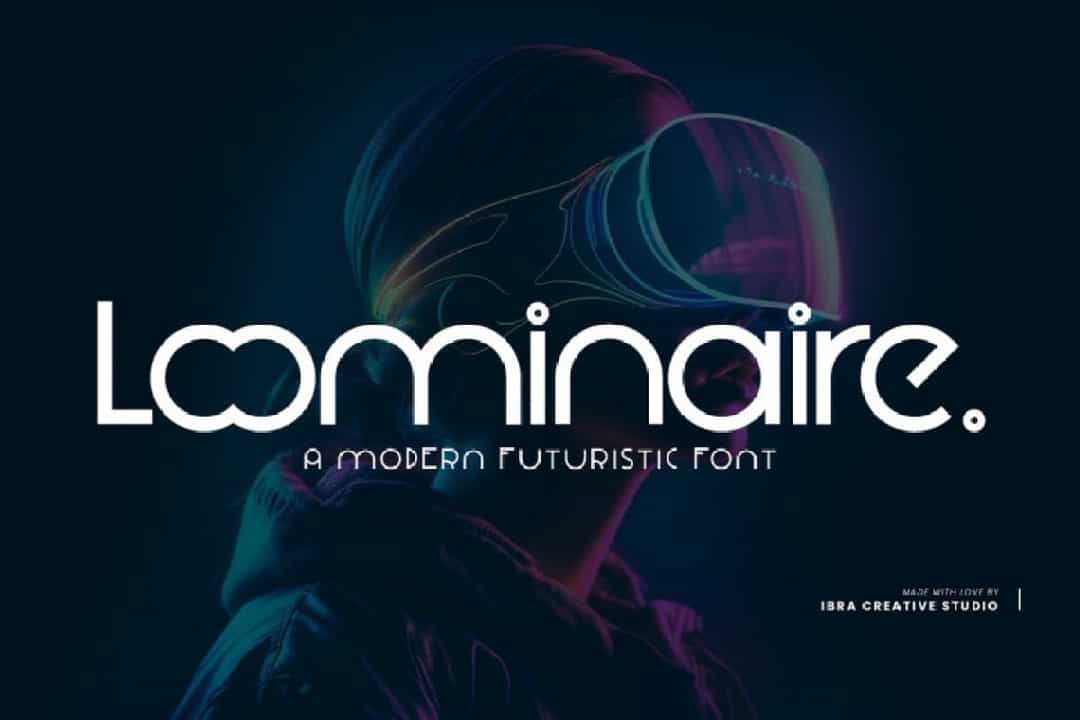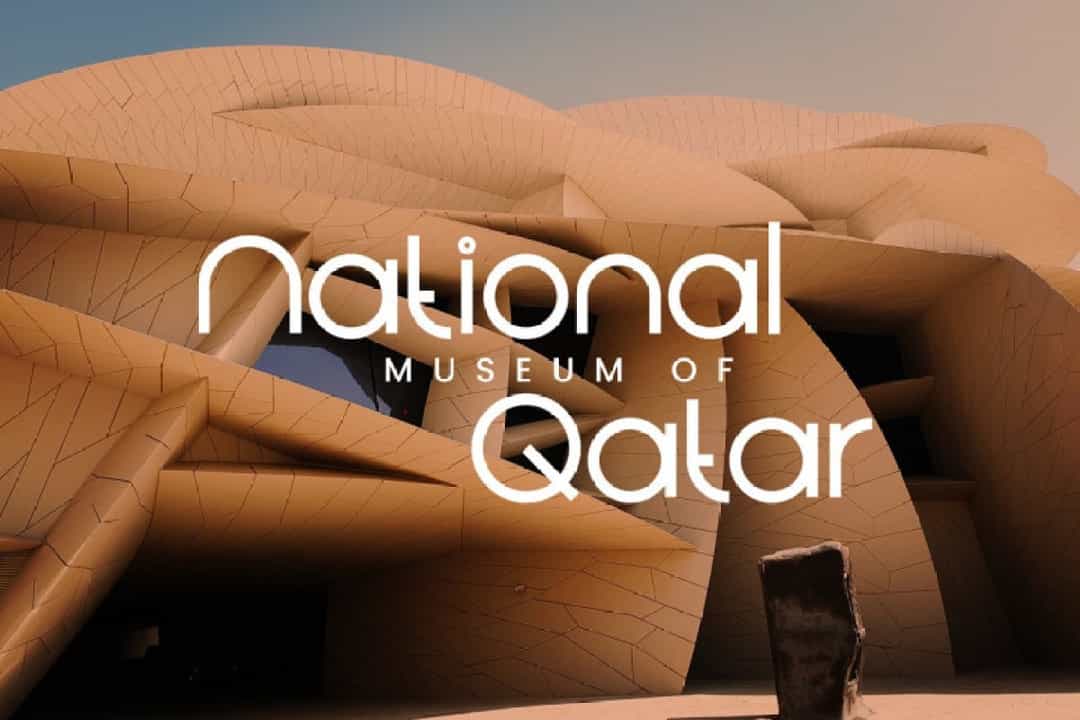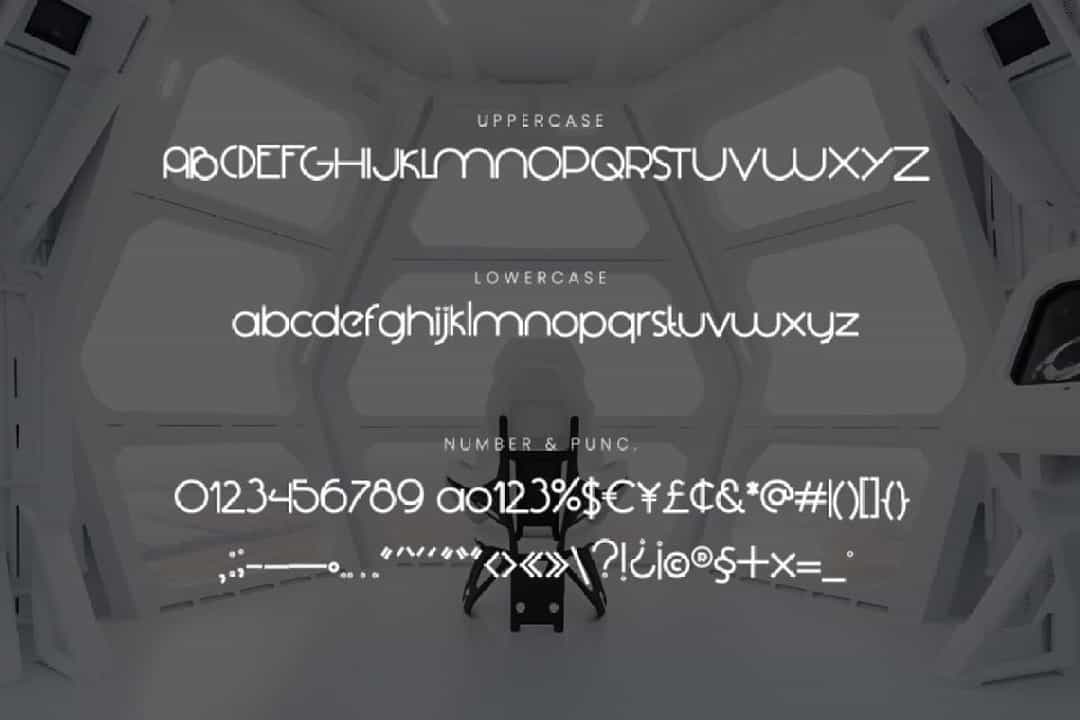
Introduce Loominaire – A Modern Futuristic Font! Make a statement with Loominaire, an eye-catching font that perfectly captures modernity and creativity. Perfect for branding, ads posters websites etc – Loominaire offers something fresh to give branding, ads posters websites etc that extra modern edge!